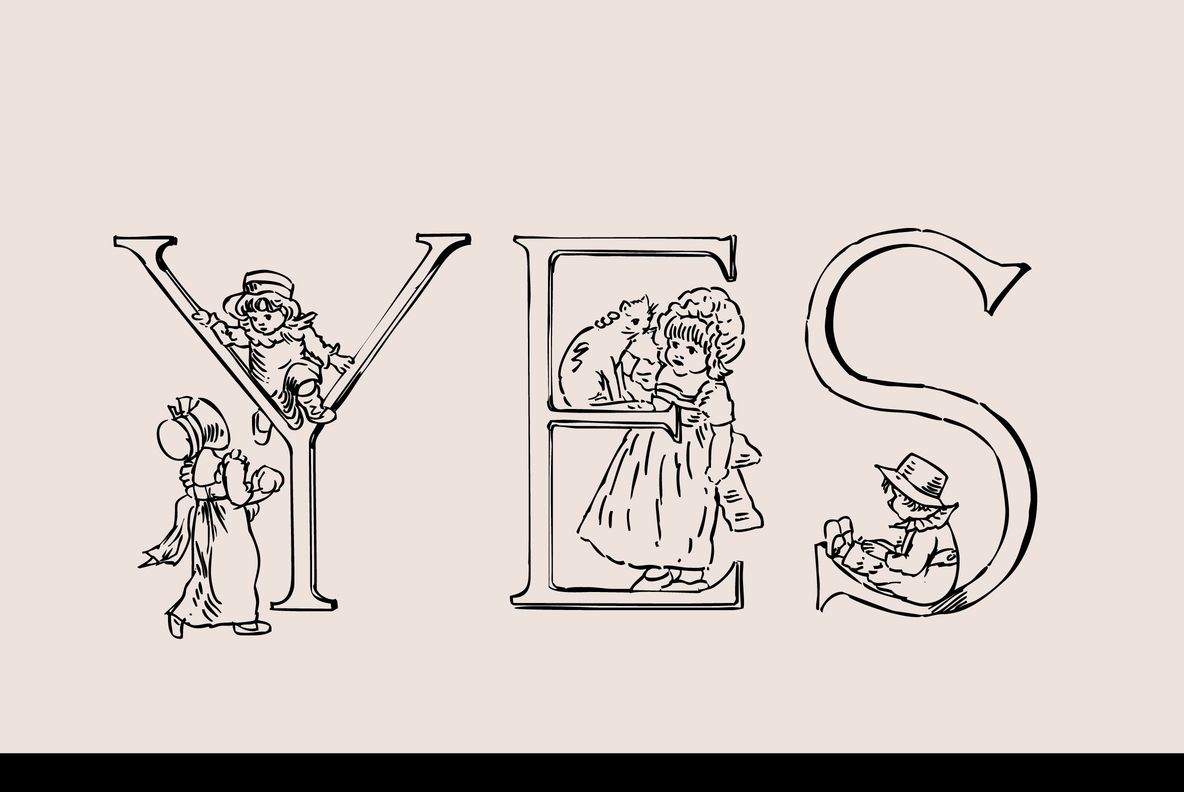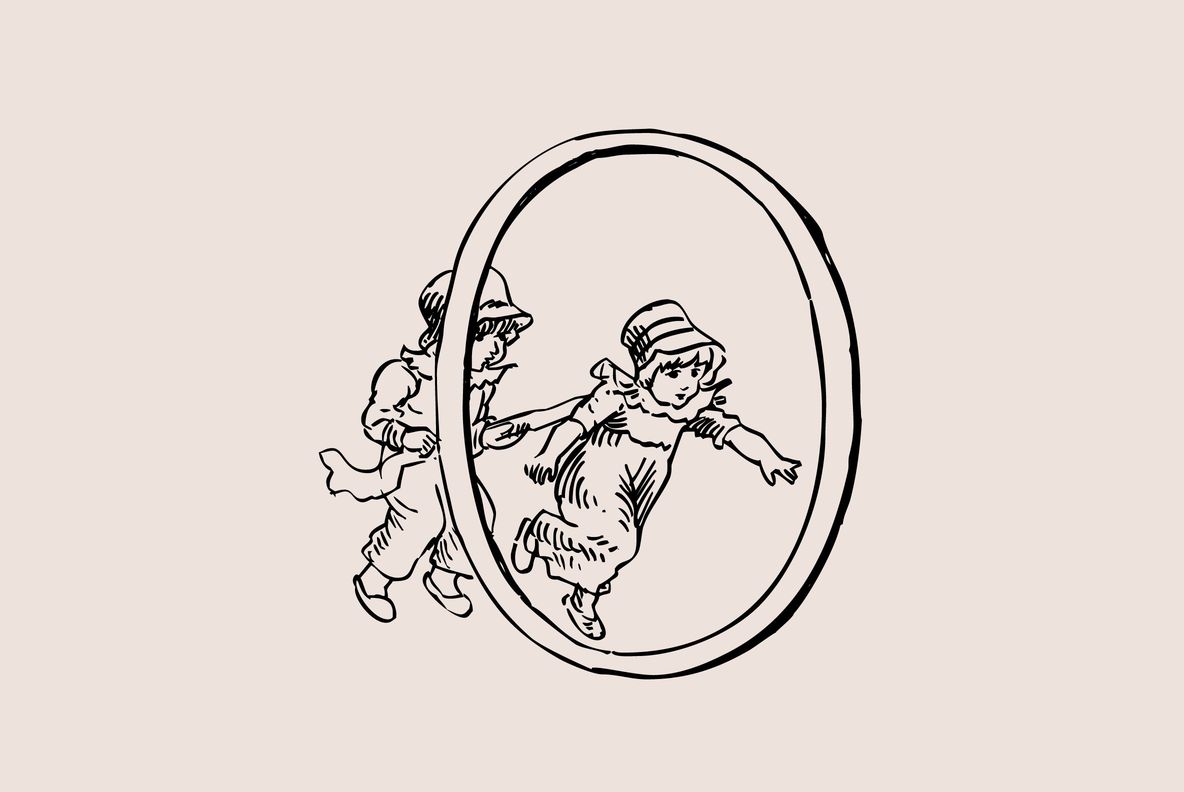
Kate Greenaway Alphabet Font
Kate Greenaways Alphabet
Some time ago I bought my smallest book ever "Kate Greenaway's Alphabet" 57 x 72 mm. I thought it was the sweetest little book I had ever seen. Not knowing about the fame of the designer »Kate Greenaway« (1846-1901) I put it in some dark drawer and looked at it from time to time.
Kate's books were all outstanding successes in English publishing history, she was an icon of the Victorian era. Some of those books are still being reprinted today. This little gem I had accidentally acquired has become very rare and I have not found any reprints yet.
So I thought maybe I can manage to adapt her drawings for use on todays computers. I ventured to redraw her delicate illustrations blowing them up 300 percent, being forced to simplify them without loosing her touch. It took quite some time! While redrawing them I discovered that she most certainly drew them in at least three different sessions as well.
Then I scanned my drawings and put them in a font. To make the font more usable, I added the ten numerals in Kate's style, the original does not have those. I think she would have liked my adaptations.